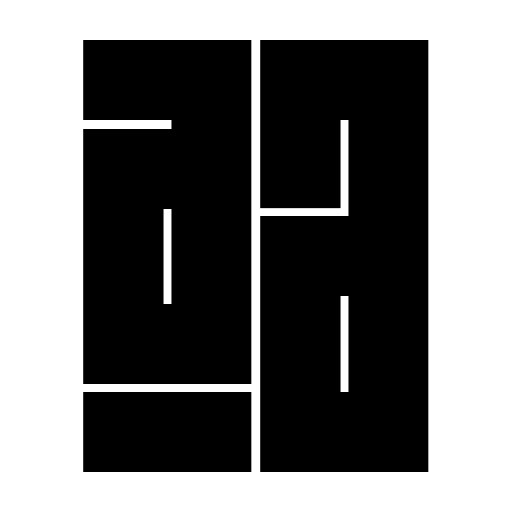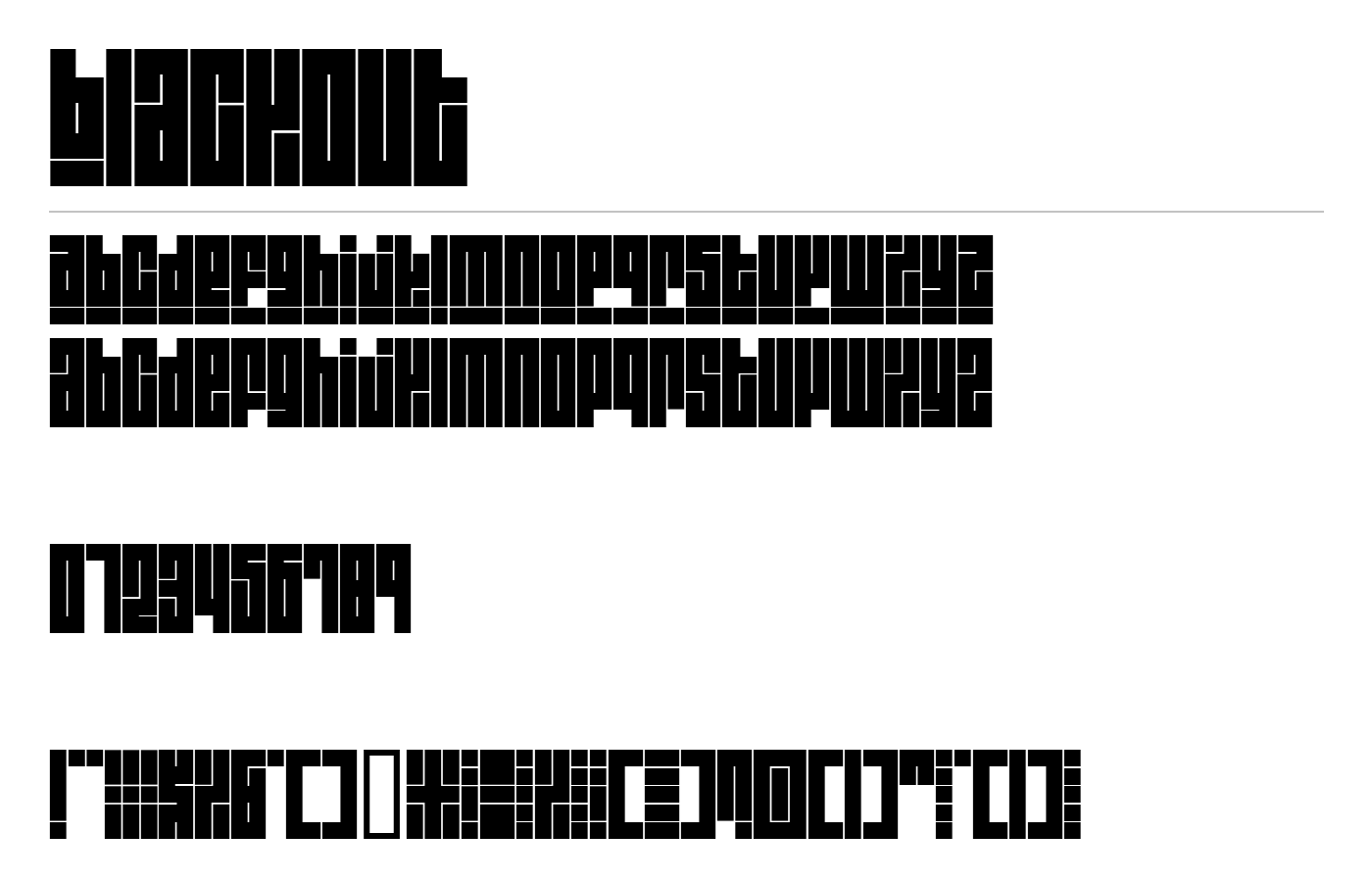
Blackout Font is a bold, condensed sans serif typeface with a strikingly geometric and blocky design, characterized by its extremely high stroke contrast where thick vertical bars dominate and thin horizontal lines create structure. Its imposing, modern style brings a futuristic, almost digital feel, making it perfect for attention-grabbing headlines, posters, or branding that seeks a strong, technical aesthetic. This font works best in impactful display settings where readability at large sizes is critical and a contemporary, edgy mood is desired.
Blackout Font